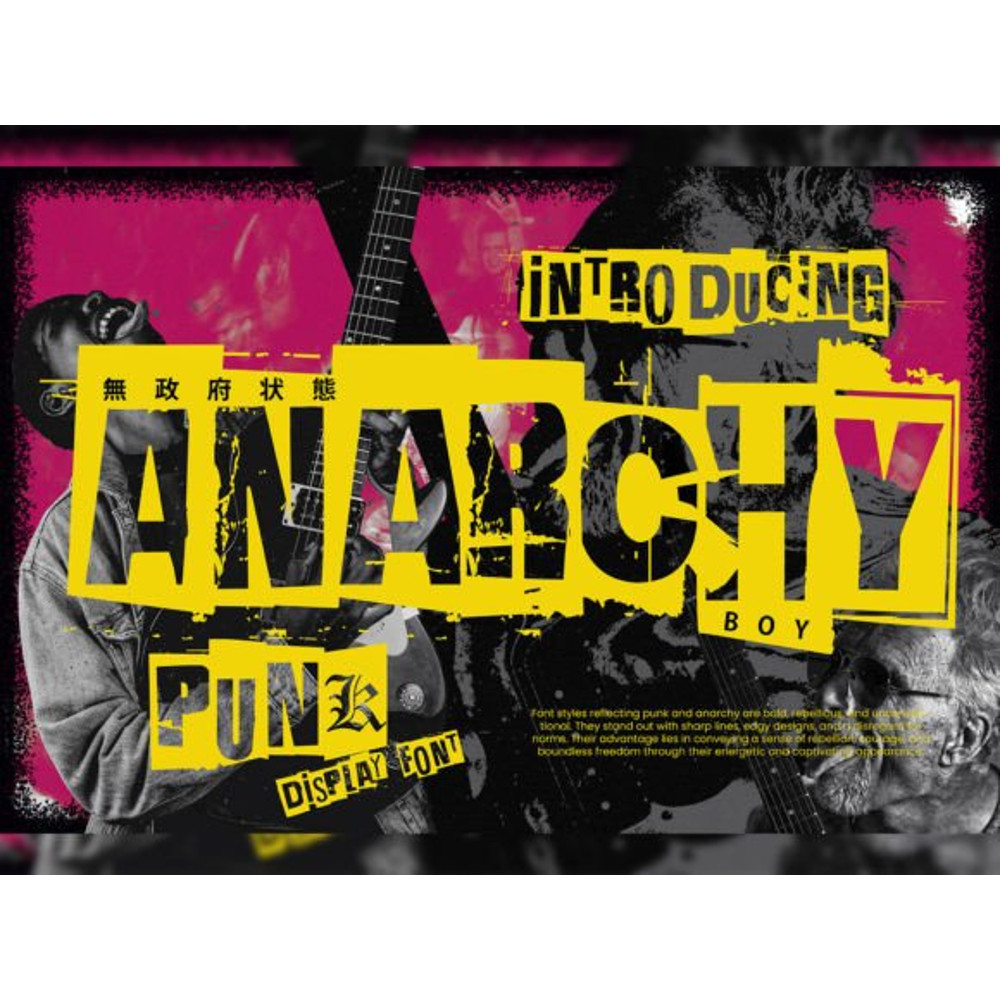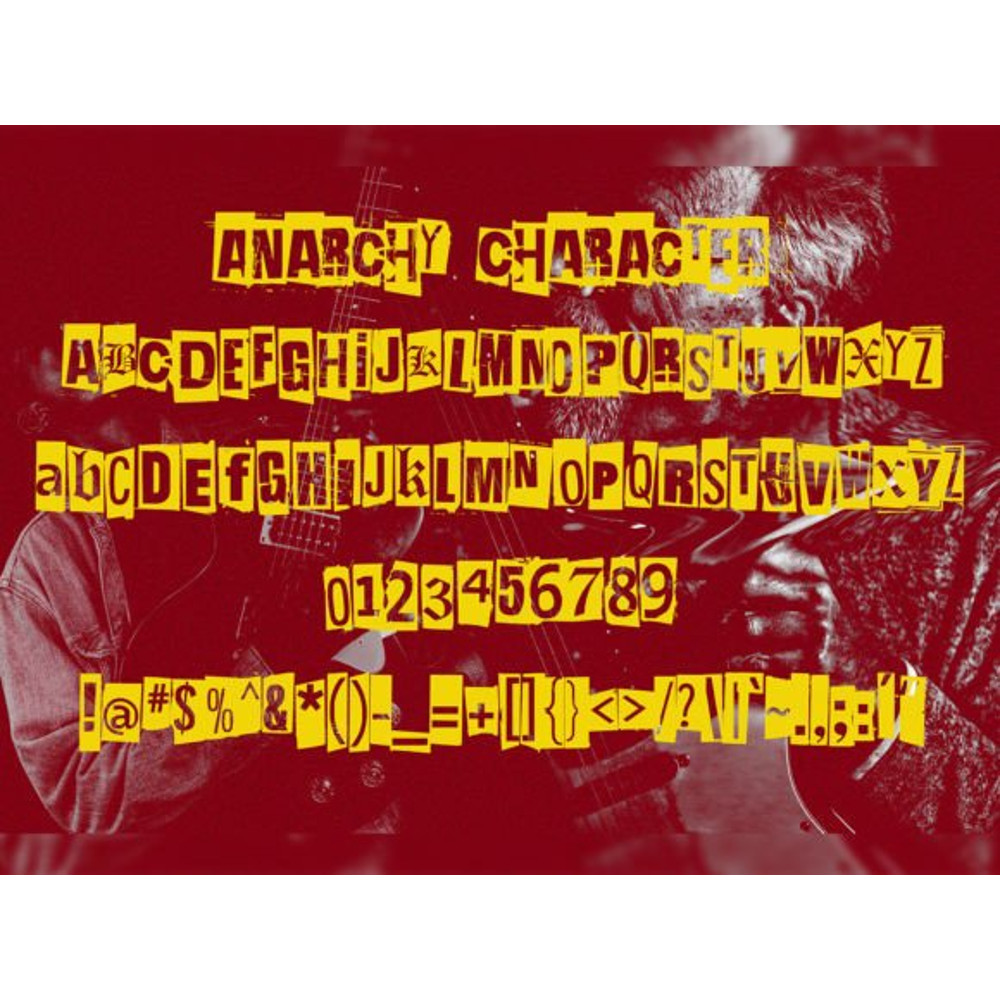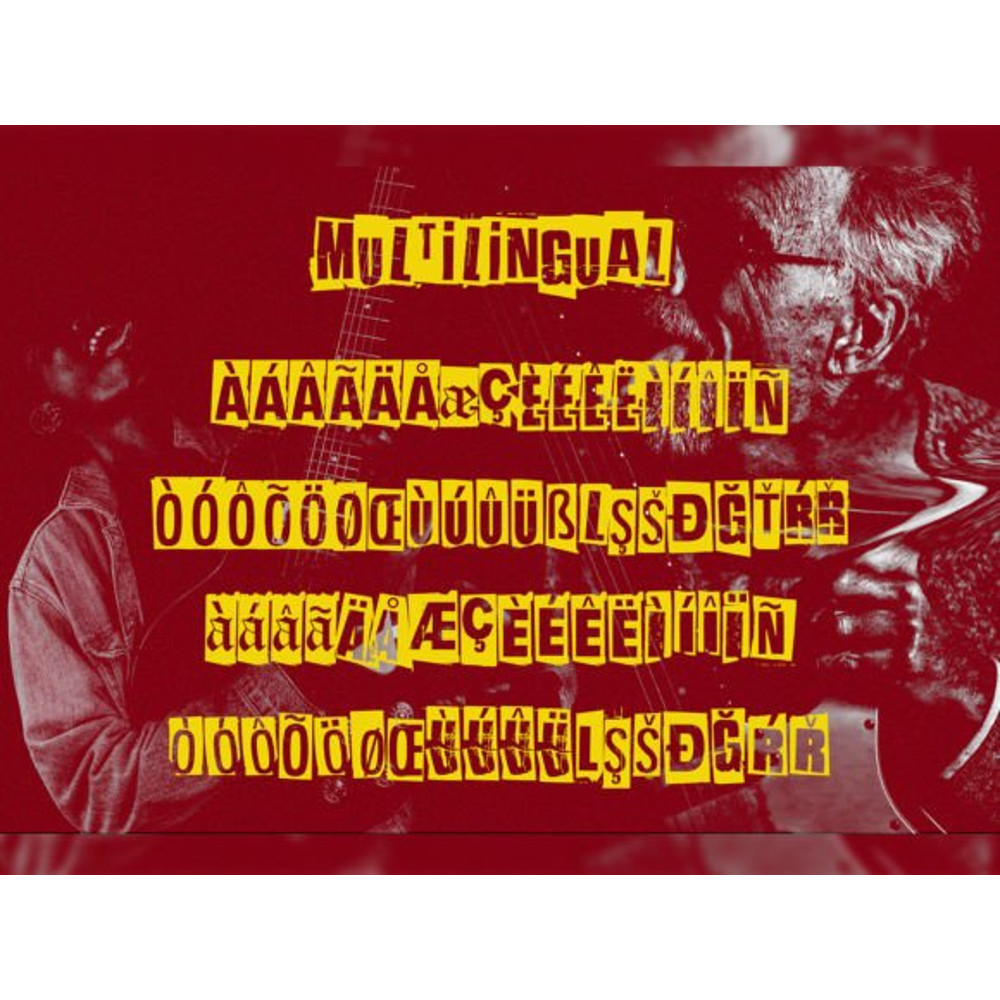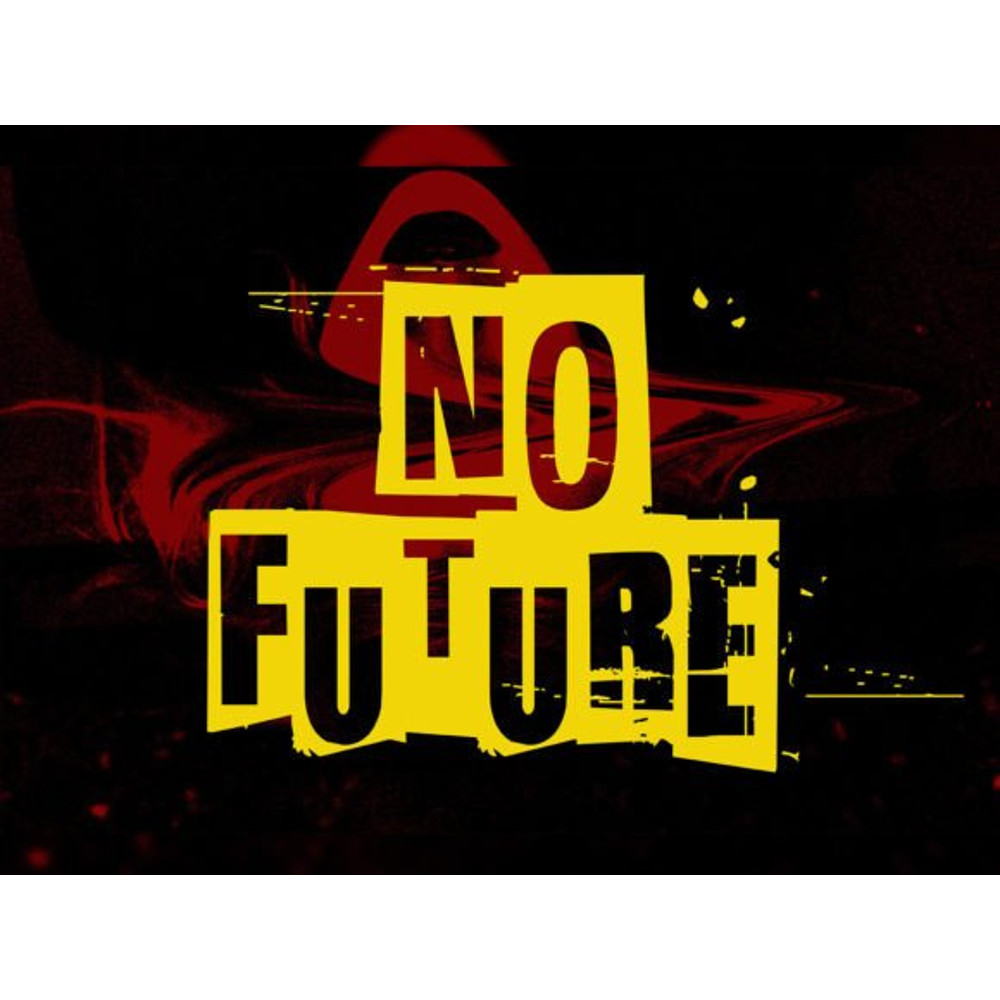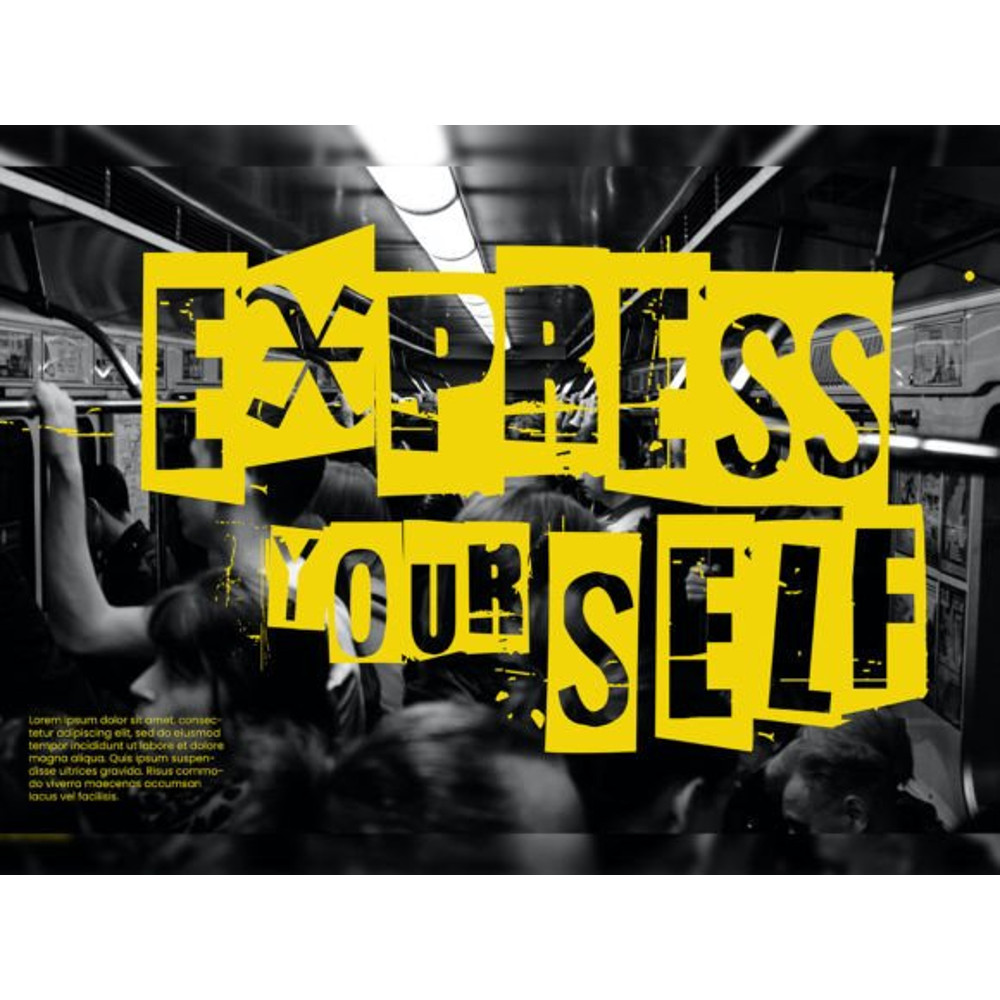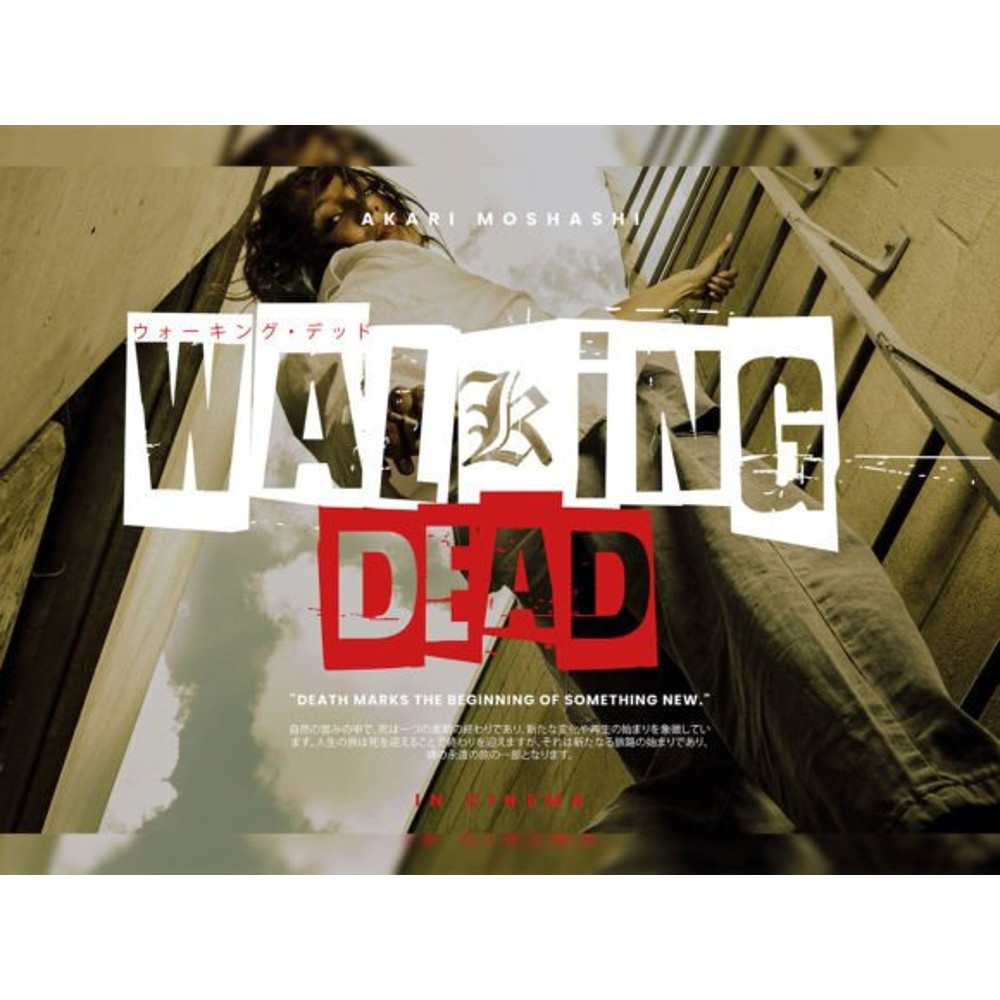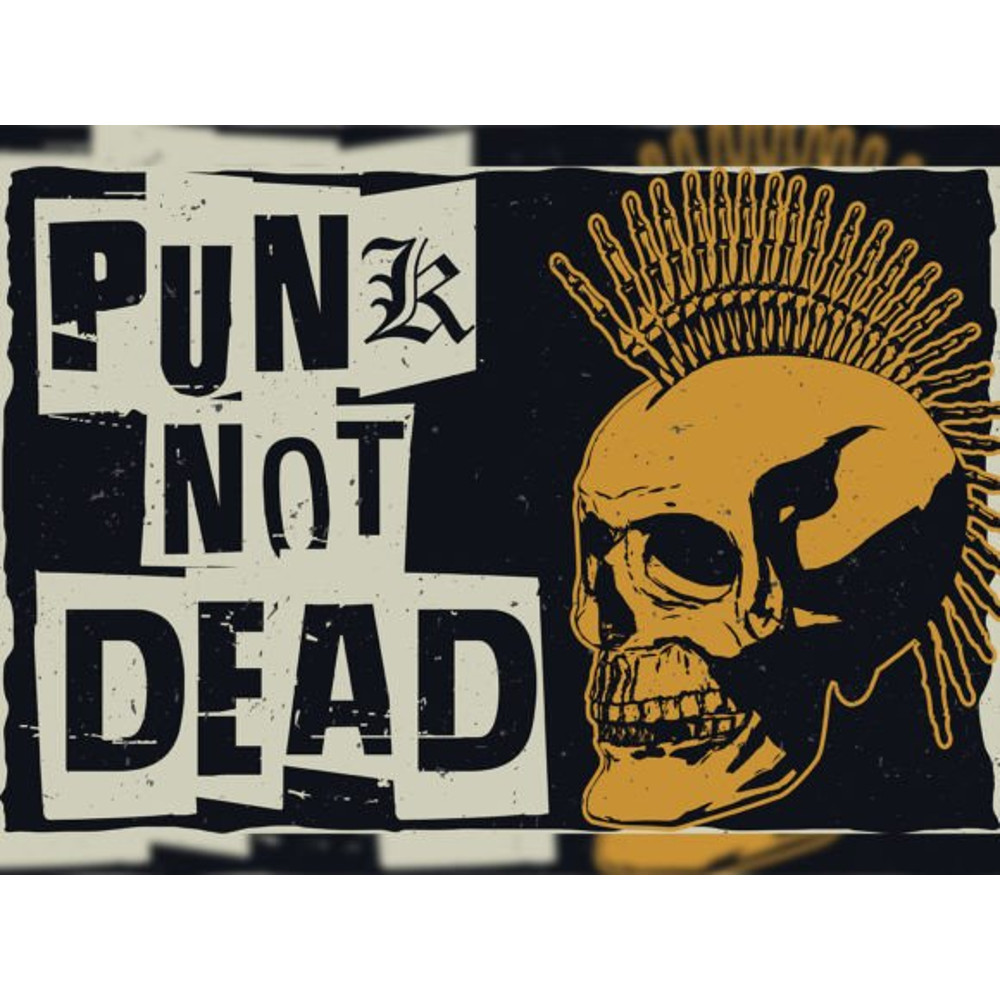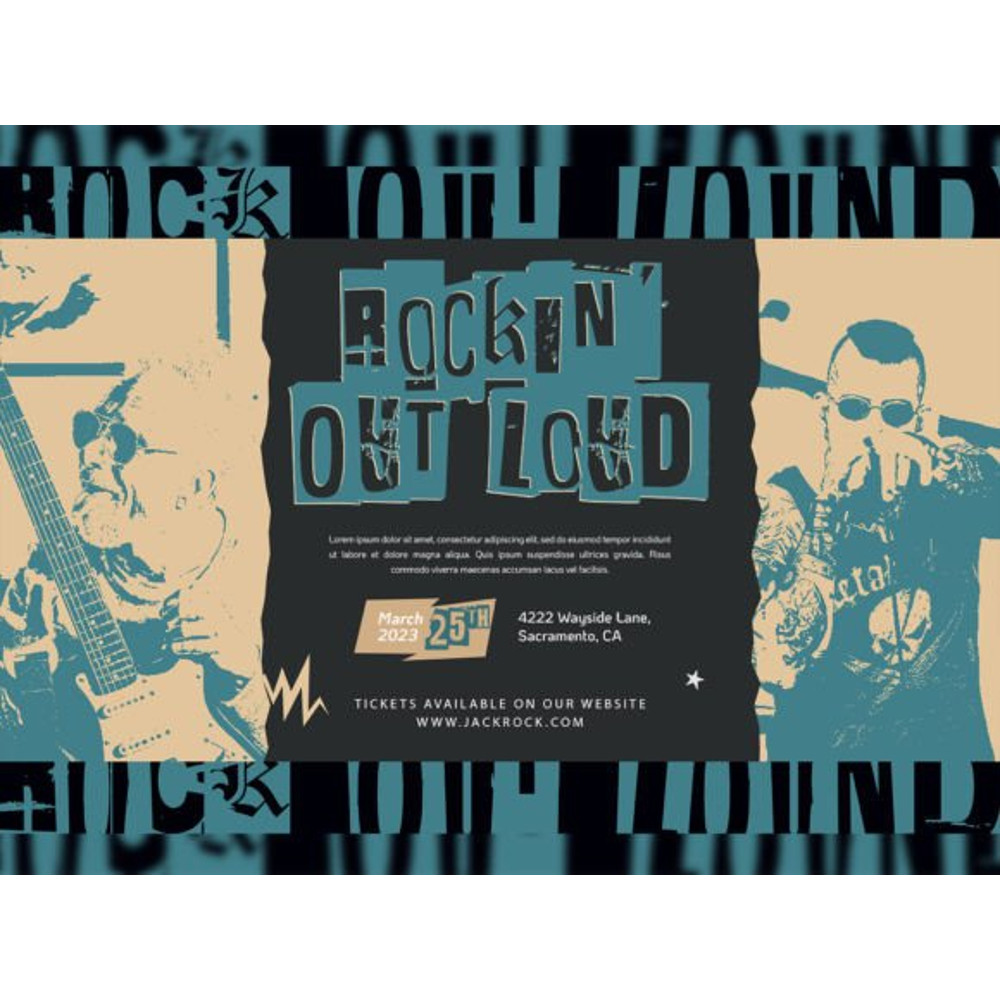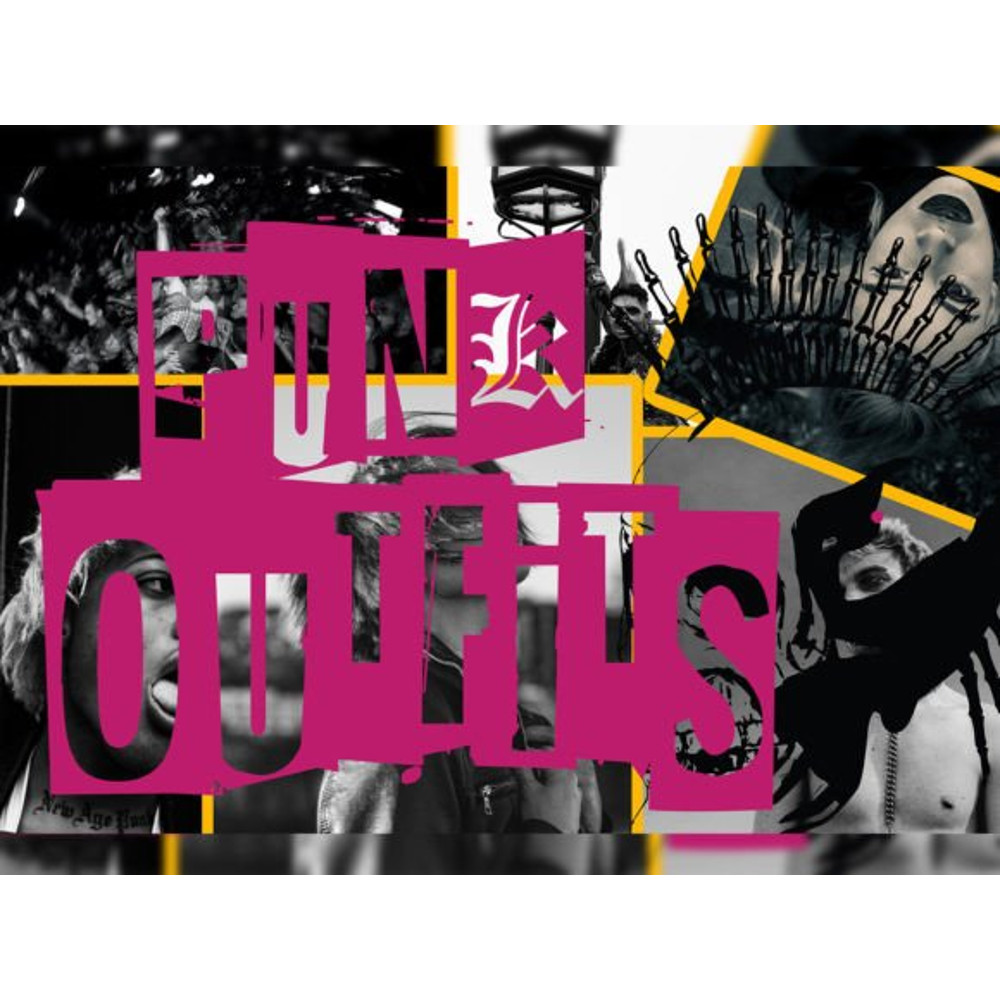
Anarchy Font
Introducing **Anarchy**, a simple and display font.
So perfect for you who need a typeface for logo designs, magazines, social media, brochures, and many more.